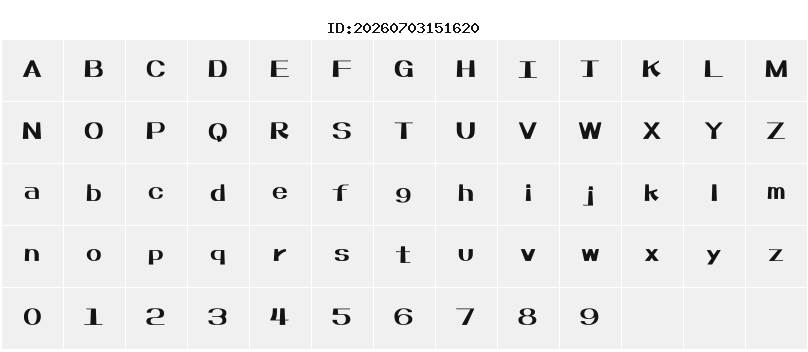
309-上首栏栅体 Preview
• Font Name: 309-上首栏栅体
• Full Font Name: 309-上首栏栅体
• Manufacturer: 上首造字
About 309-上首栏栅体.ttf
309-上首栏栅体.ttf is a modern, elegant sans-serif font designed for ultimate readability and visual harmony. Perfect for branding, headlines, web design, and print materials.